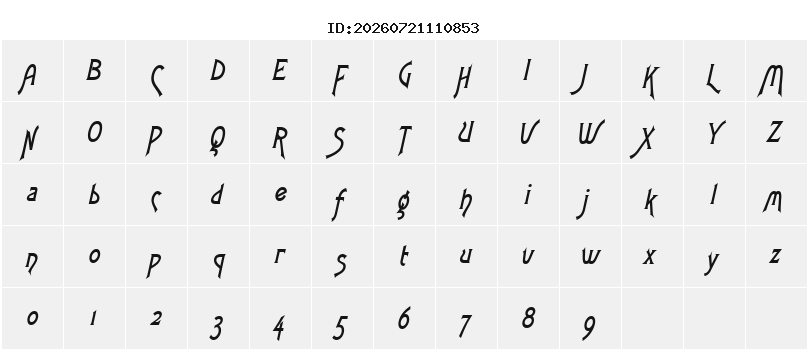
Fletch Condensed Preview
• Font Name: Fletch Condensed
• Font Style: BoldItalic
• Font ID: Altsys Fontographer 4.1 Fletch Condensed BoldItalic
• Full Font Name: Fletch Condensed BoldItalic
• PostScript Name: FletchCondensedBoldItalic
About Fletch Condensed.ttf
Fletch Condensed.ttf is a modern, elegant sans-serif font designed for ultimate readability and visual harmony. Perfect for branding, headlines, web design, and print materials.